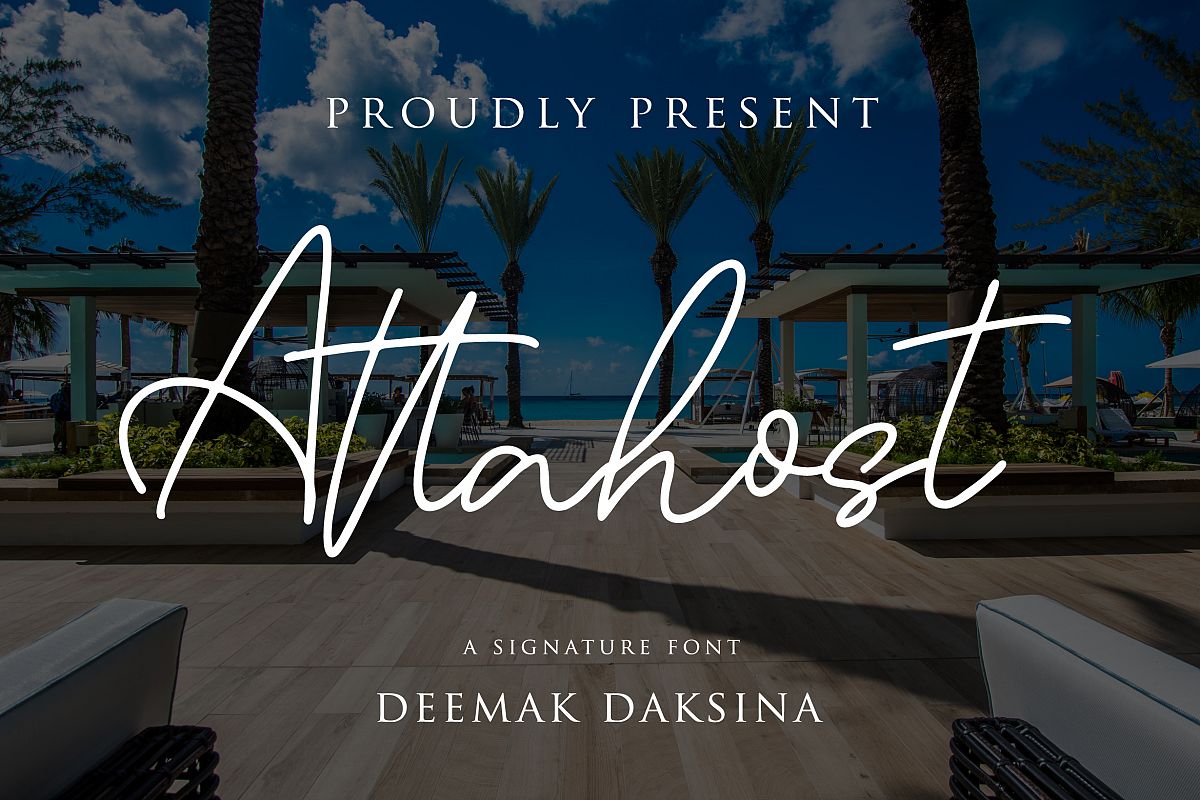
Attahost - Simple & Elegant Signature
Attahost
Attahost is simple and elegant signature that we designed to be looks really good on big size such as billboard, name sign, etc. Also we make the style to be applicable in these category : resort, poster, fashion, label, packaging, hotel, and lifestyle.